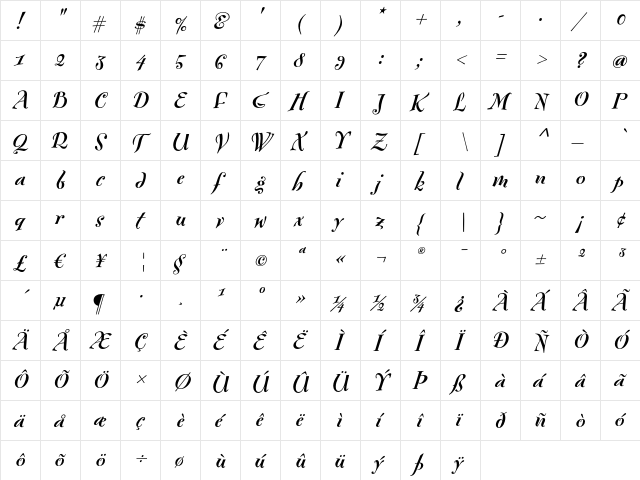
Fontesque BoldItalic
Design Context for Fontesque Typeface
Fontesque is a composed and adaptable typeface that performs quietly and consistently across a wide range of design contexts. The dynamic lean of this cut emphasises speed and emphasis in any layout. The heavy weight commands attention and anchors typographic hierarchies.
Pro Tip: Use Fontesque for emphasis, pull quotes, and subheadings where its slanted energy can add rhythm to the layout.